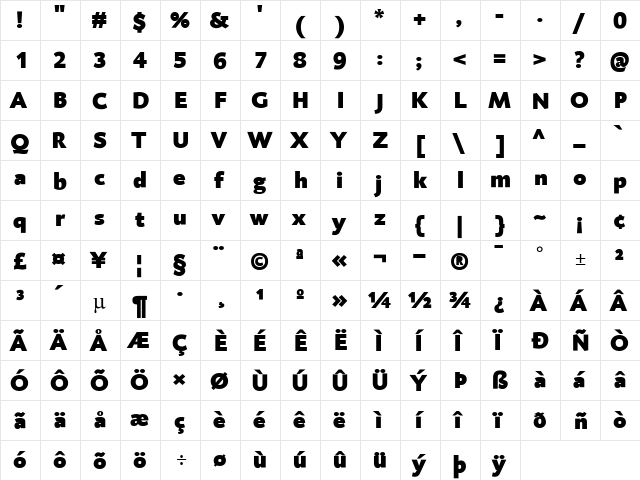
DTLCaspariTBlack Regular
Design Context for DTLCaspariTBlack Typeface
DTLCaspariTBlack offers clean, dependable letterforms without strong stylistic allegiance, making it a practical choice for designers who need flexibility.